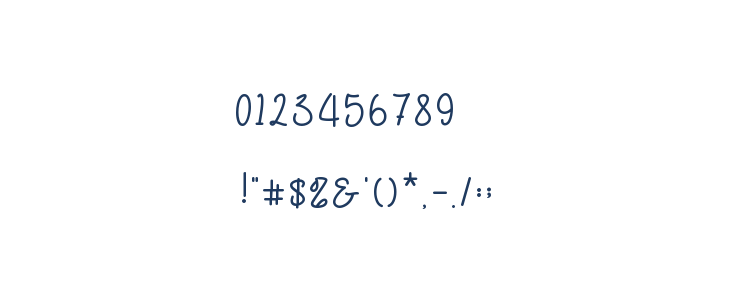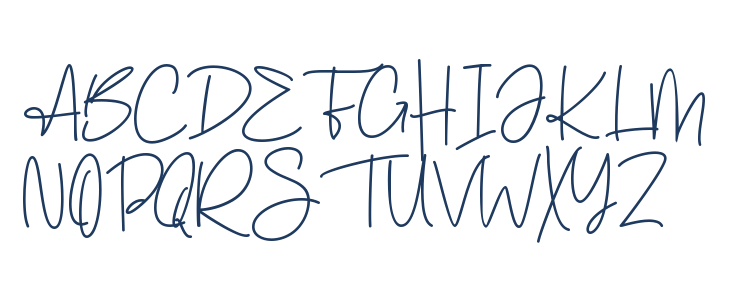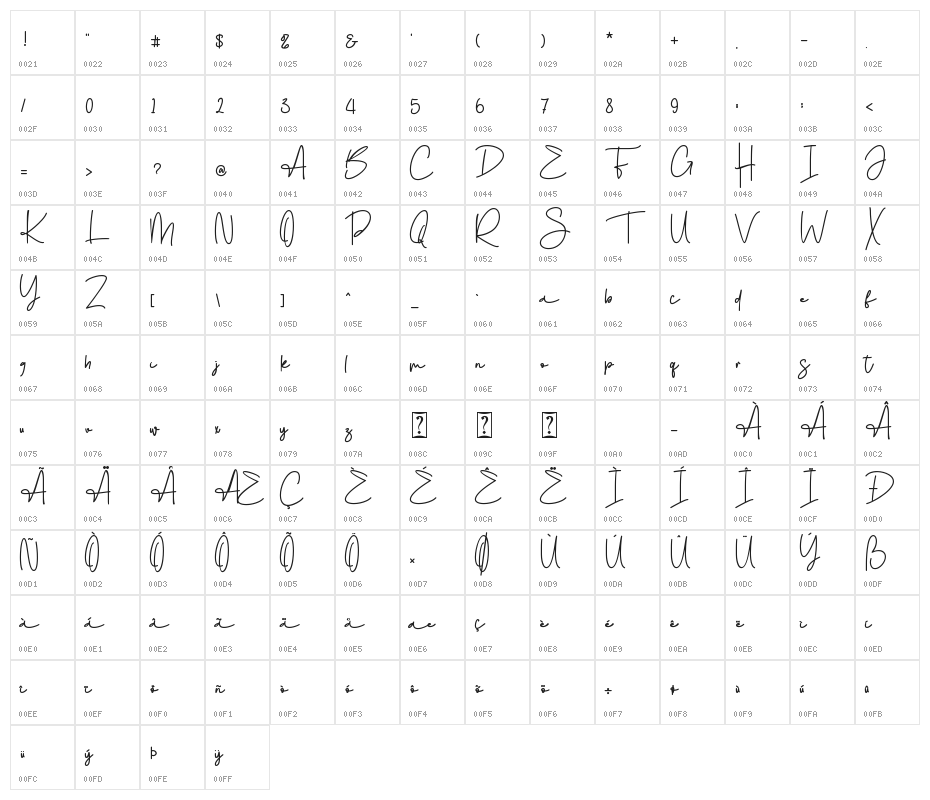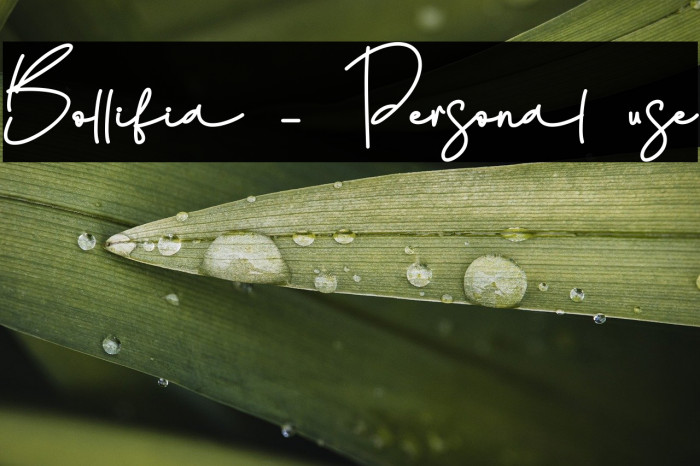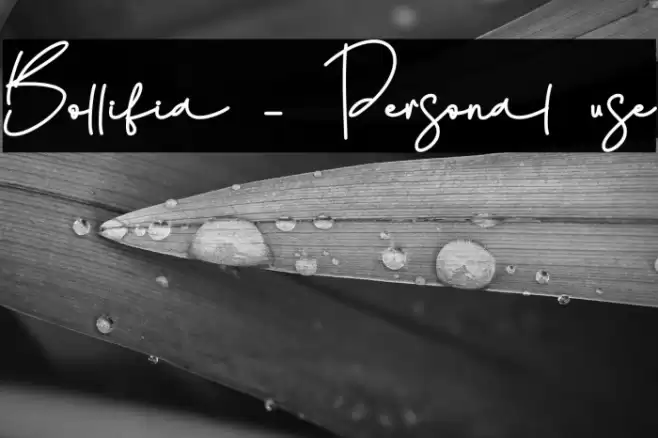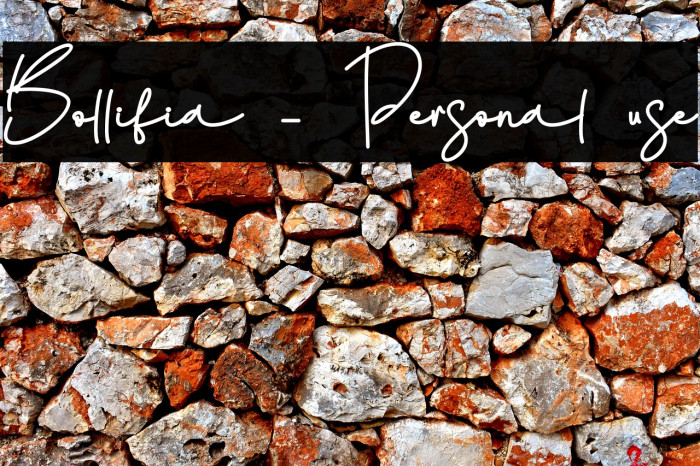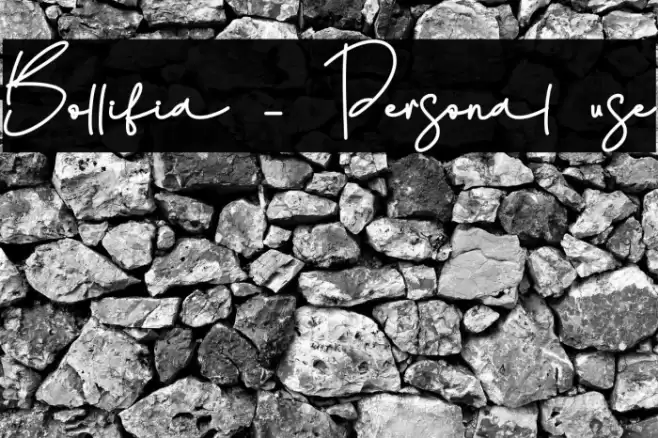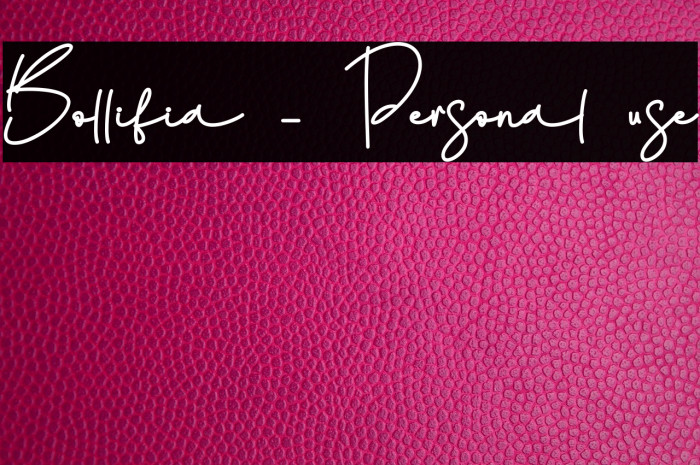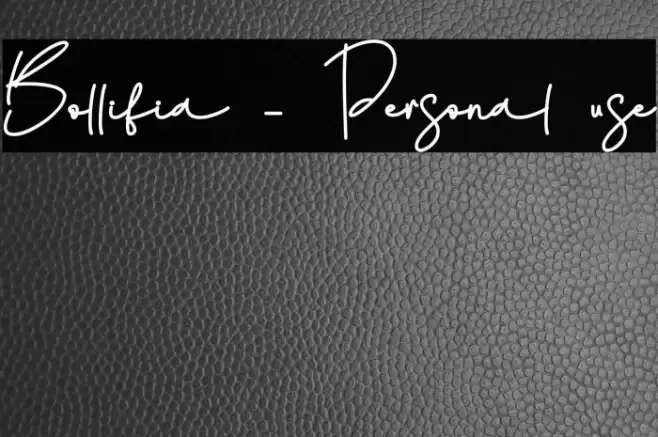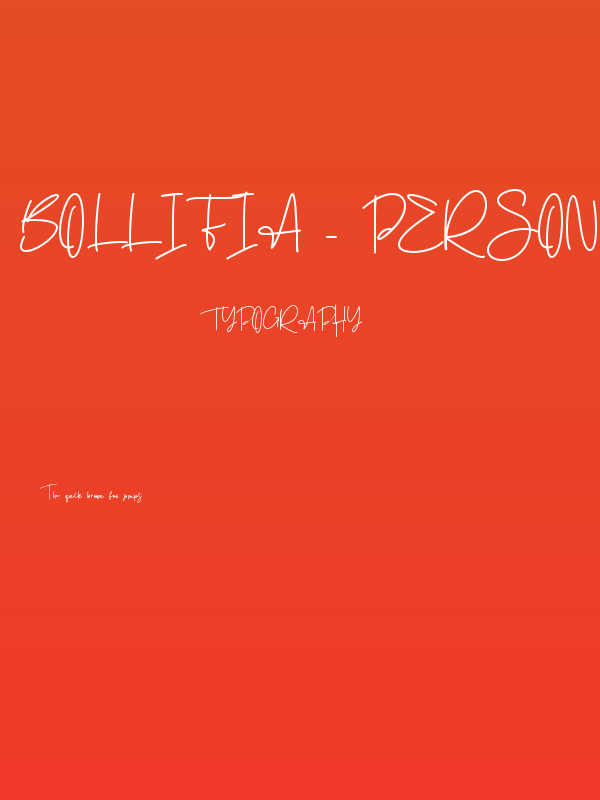
Bollifia - Personal use Font
Bollifia - Personal use Description
A handwritten, casual script font with a playful and informal style, featuring varying stroke widths and a slightly irregular baseline.
| Overall Style | Casual, Playful, Informal |
| Use Case | Invitations, Greeting Cards, Personal Branding, Creative Projects |